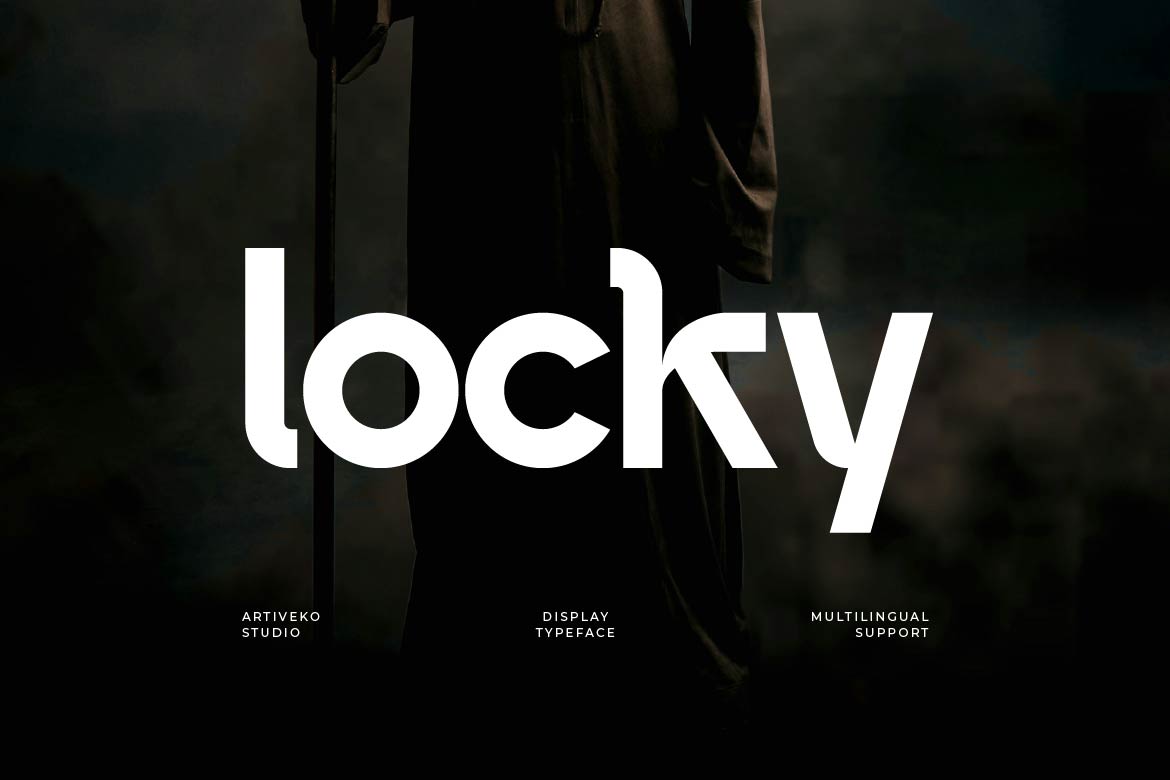
- Locky – Contemporary Sans Font for UI, Web & Identity Design
Locky is a modern semi-bold sans serif typeface designed to deliver clarity, balance, and versatility in contemporary design. With clean lines, refined proportions, and a confident medium weight, Locky offers a strong presence without feeling too heavy—making it ideal for both headlines and body text.
Perfect for branding, logos, UI/UX, websites, apps, packaging, and editorial layouts, Locky adapts seamlessly across digital and print media. Its semi-bold structure provides excellent readability while maintaining a modern and professional aesthetic.
Whether you’re building a startup brand, corporate identity, or digital product, Locky gives you a clean and reliable typographic voice.
Locky is not just a font — it’s a modern essential for balanced and effective design.